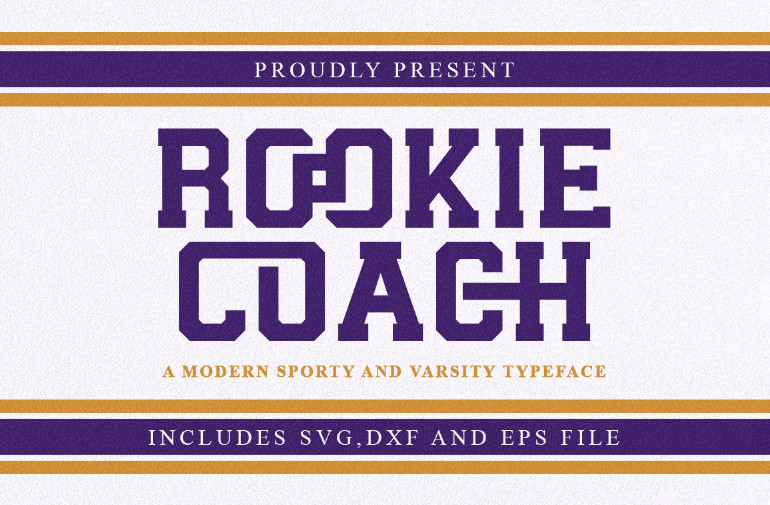
Rookie Coach Font
Rookie Coach Display Font, a moder sporty and varsity typeface, this font is the perfect way to add style and flair to your designs! The unique, sophisticated shapes and amazing mix of shapes in this font will automatically add a touch of class and sophistication. ideal for use in greeting cards, posters, product packaging, or just to add a little flair to your designs. Its simplicity will make it easy to read and you can use it anywhere you like. Grab your copy now and start making the most of it today!